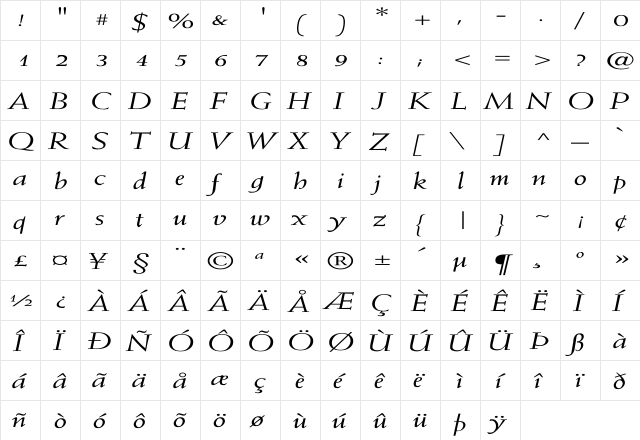
Weiss-Italic Ex Regular Font Preview
Weiss-Italic Ex Regular
Design Context for Weiss-Italic Ex Typeface
Weiss-Italic Ex is a composed and adaptable typeface that performs quietly and consistently across a wide range of design contexts. The dynamic lean of this cut emphasises speed and emphasis in any layout.
Pro Tip: Use Weiss-Italic Ex for emphasis, pull quotes, and subheadings where its slanted energy can add rhythm to the layout.